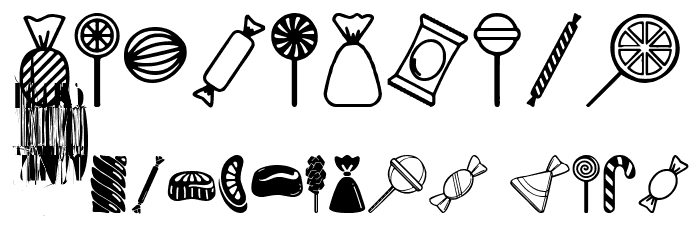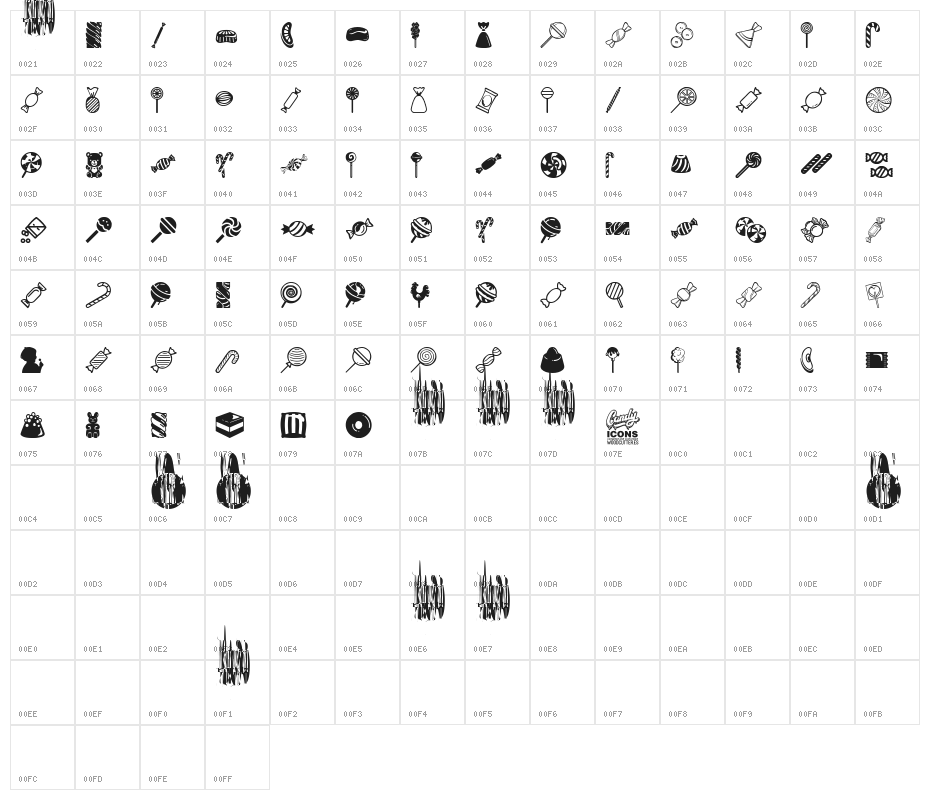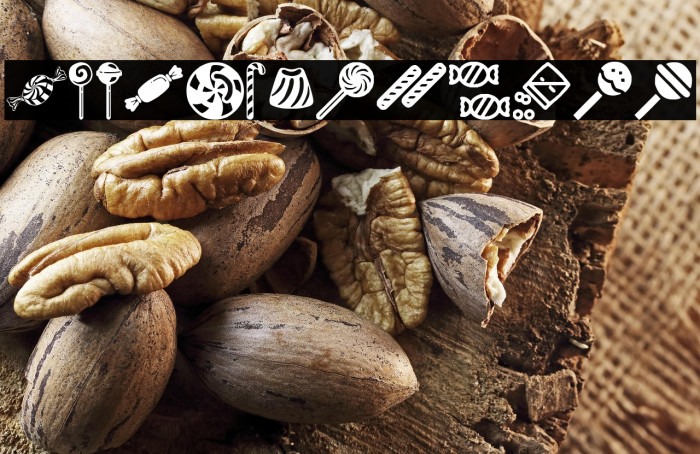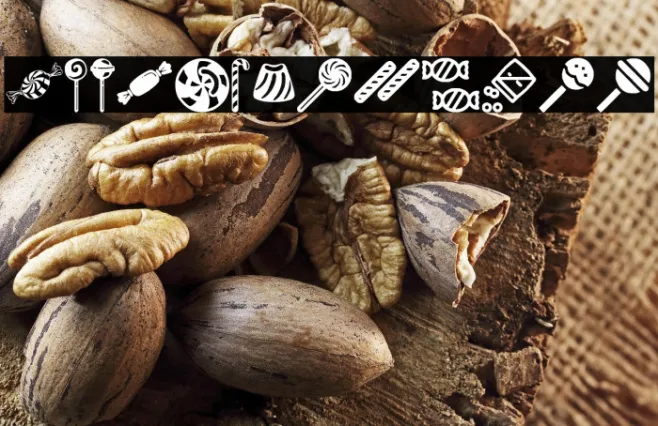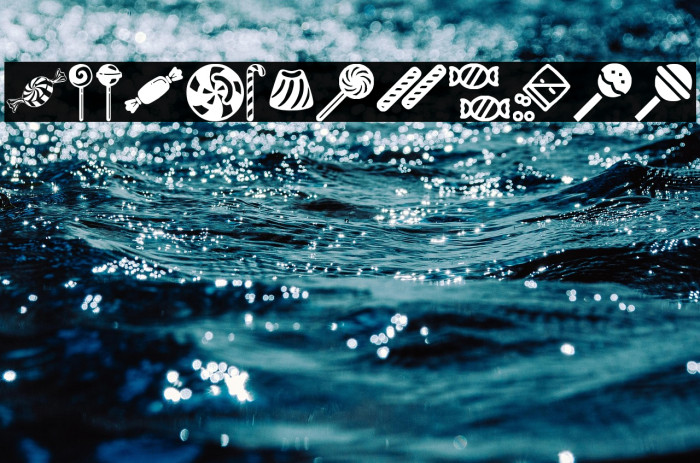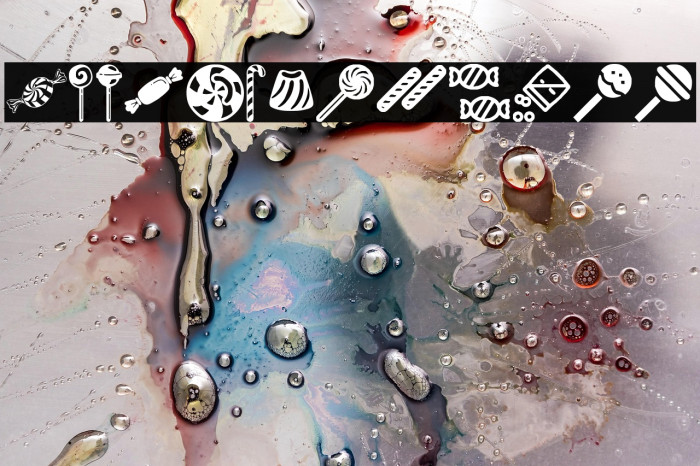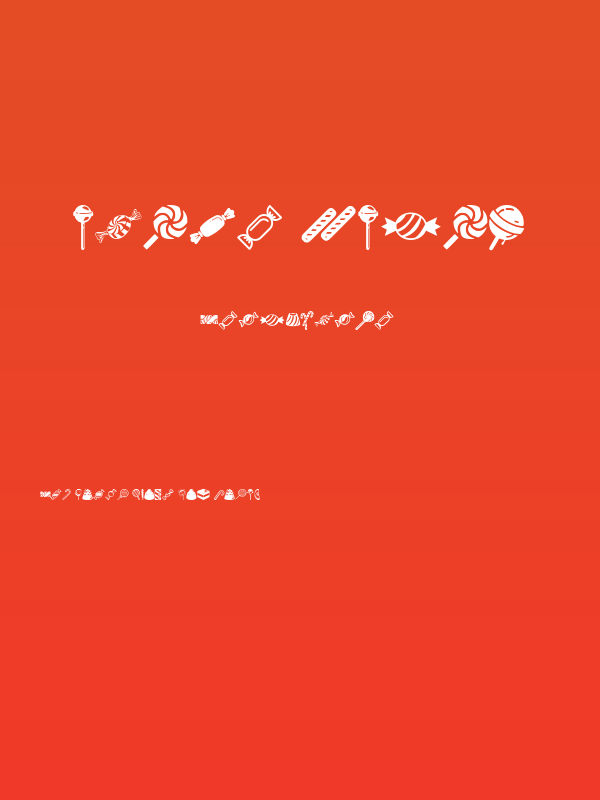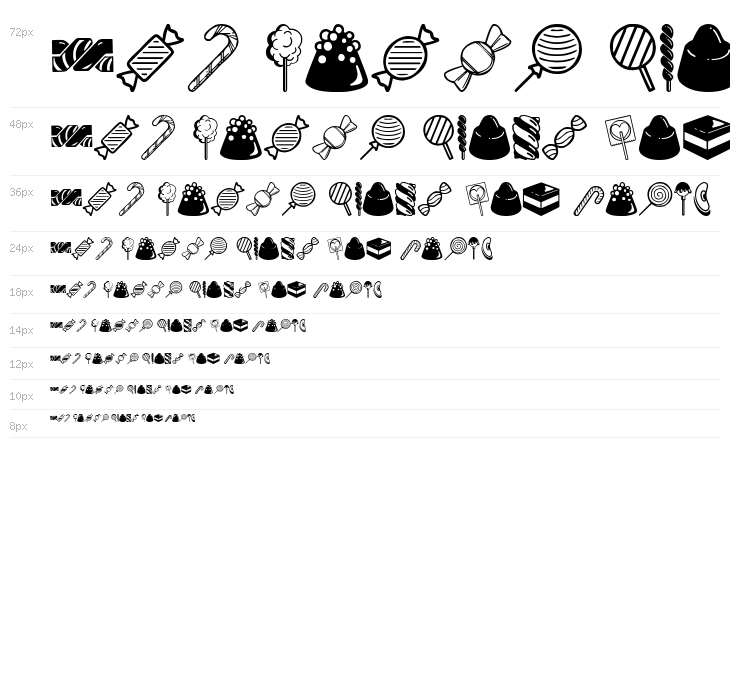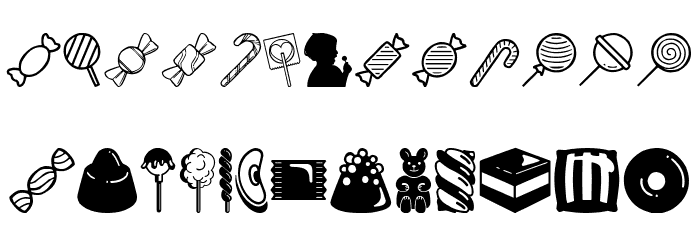
Candy icons Font
Candy icons Description
A playful and varied icon set featuring a wide range of candy and sweet treat illustrations, including lollipops, wrapped candies, chocolate, gummies, and baked goods, rendered in both solid and outlined styles with bold, simple lines and whimsical details.
| Overall Style | Playful, Whimsical, Decorative |
| Use Case | Icons, Logos, Decorative elements, Themed graphics |
| Proposed Projects | Children's party invitations, candy shop branding, educational materials, mobile apps, packaging design, playful web elements. |